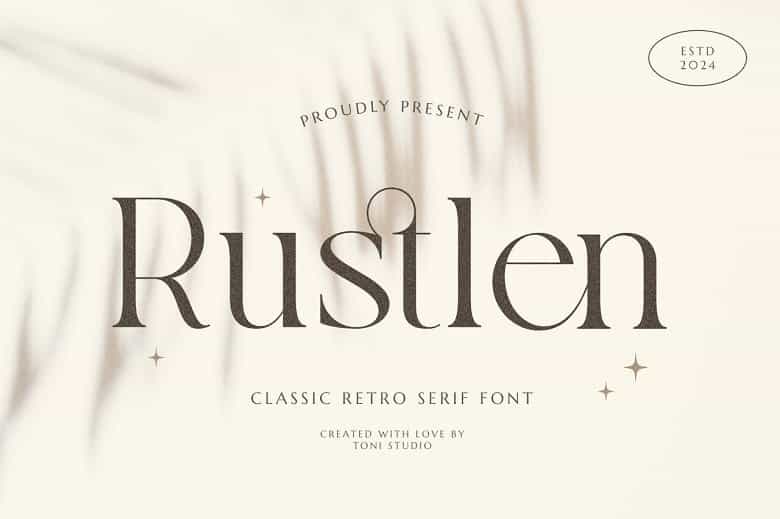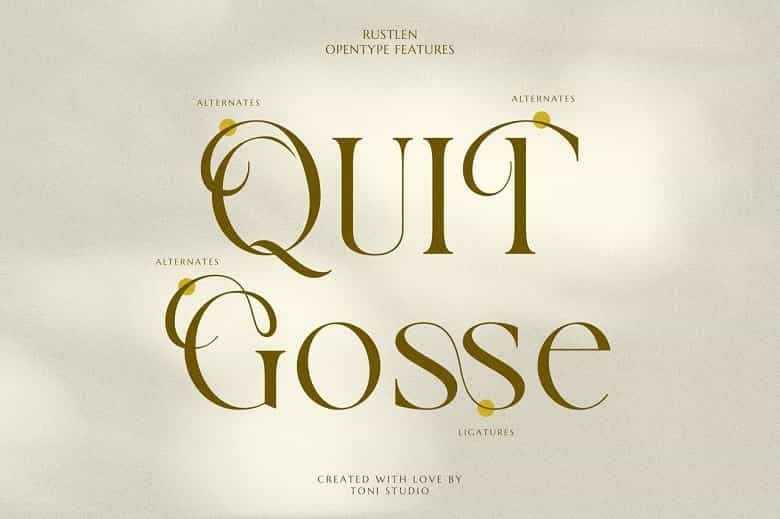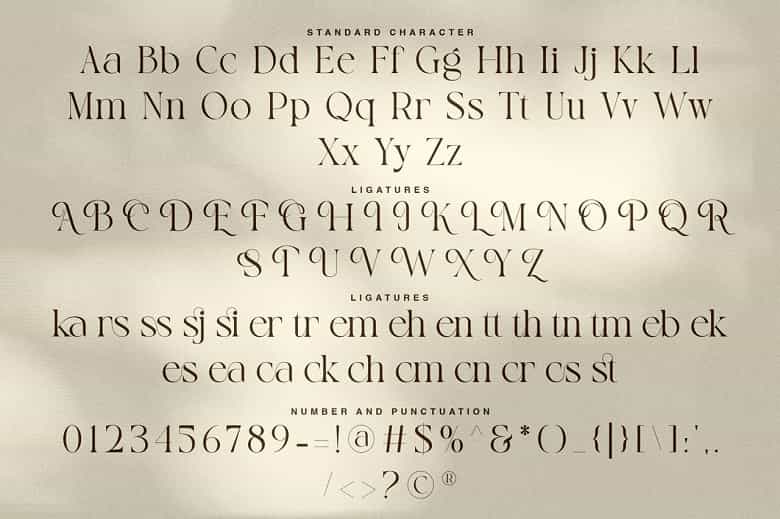
Rustlen is a classy retro serif font from ToniStudio that will add personality to your designs. Rustlen is a nice style, original and timeless. Great for any new or chic branding work. Below you will find many options and binders that will allow you to come up with a very creative and unique logo or website header!